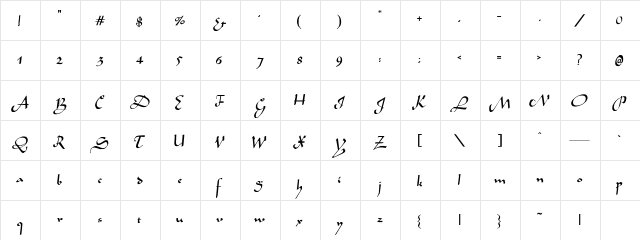
Desert-Normal Regular Font Preview
Desert-Normal Regular
Desert-Normal Regular Font Details
Design Context for Desert-Normal Typeface
Desert-Normal is a composed and adaptable typeface that performs quietly and consistently across a wide range of design contexts.